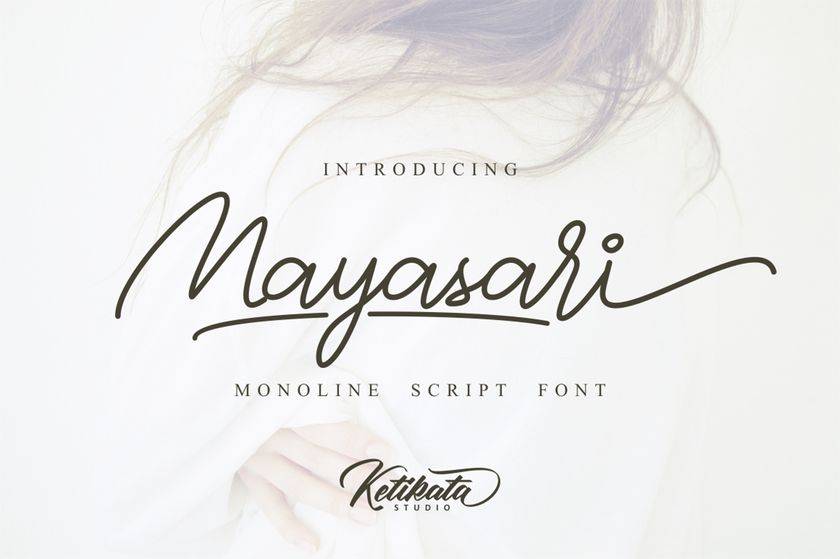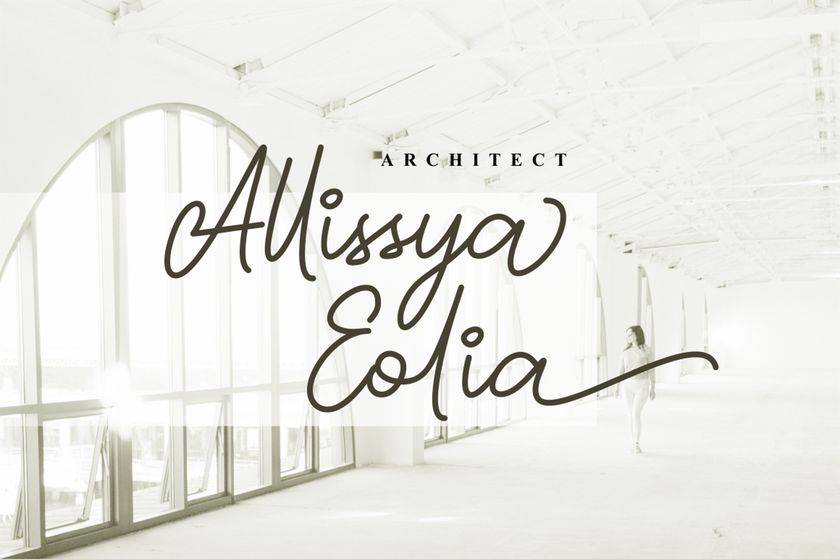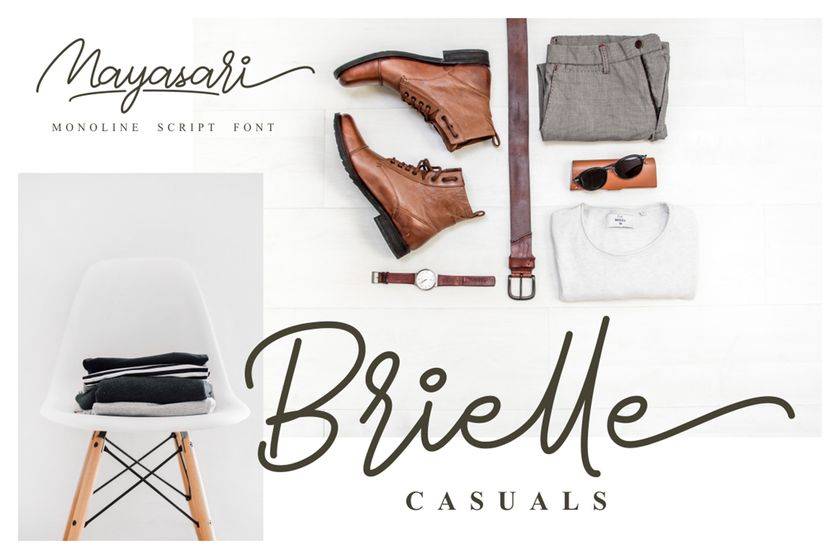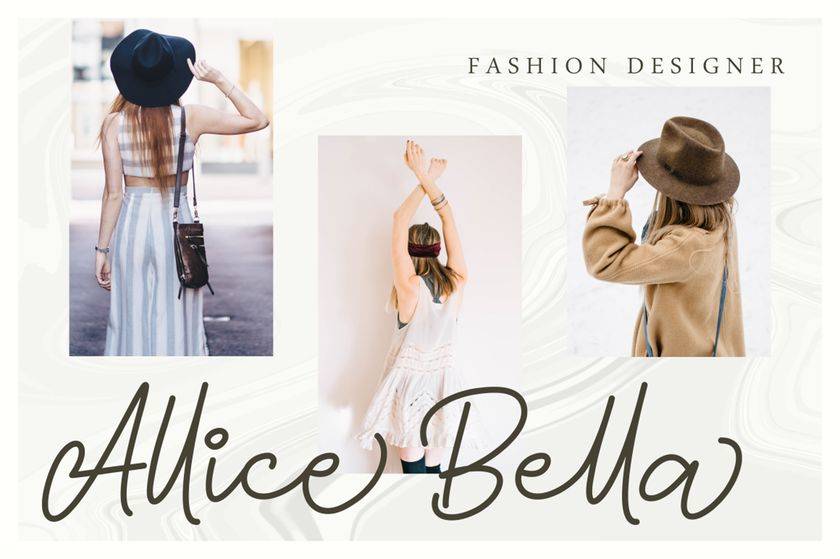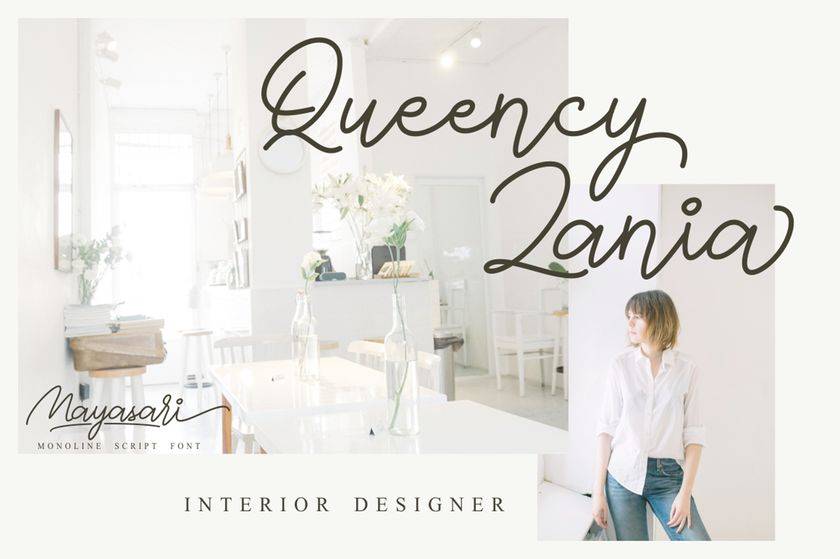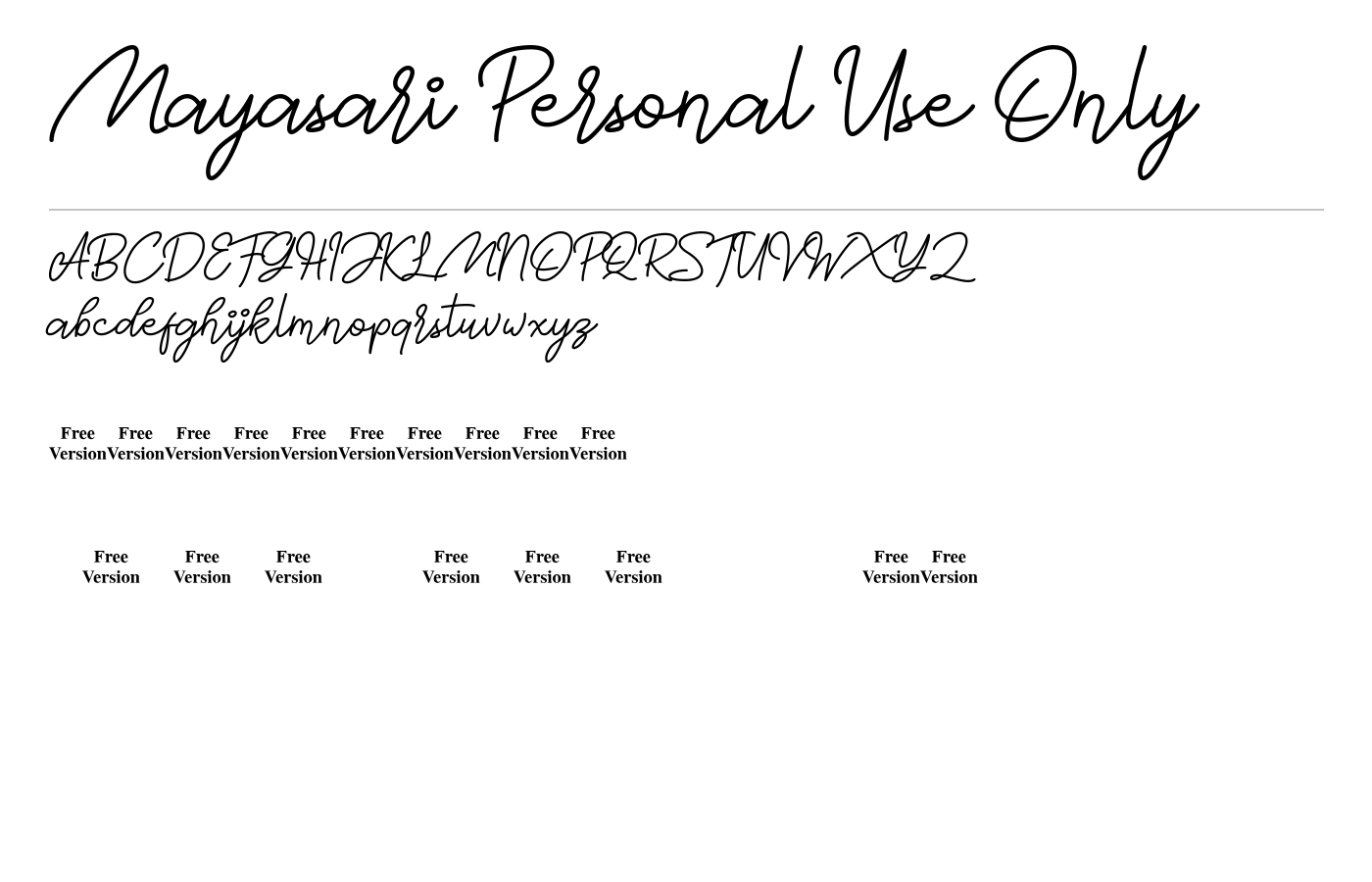
Mayasari is a delicate and elegant script font featuring smooth, flowing strokes that mimic natural handwriting with a light weight and slightly condensed width. Its distinctive, graceful letterforms convey a warm, personal touch, making it ideal for invitations, branding, and creative projects seeking an intimate or sophisticated feel. This font works beautifully where a refined yet approachable handwritten style is desired to add charm and personality.
Mayasari Font
About Mayasari Font
| Font family | Mayasari Font |
| Release date | 2019-04-28 |
| Designer | Fuad Hasan |